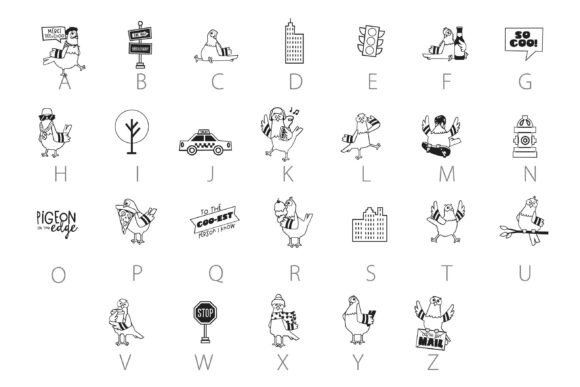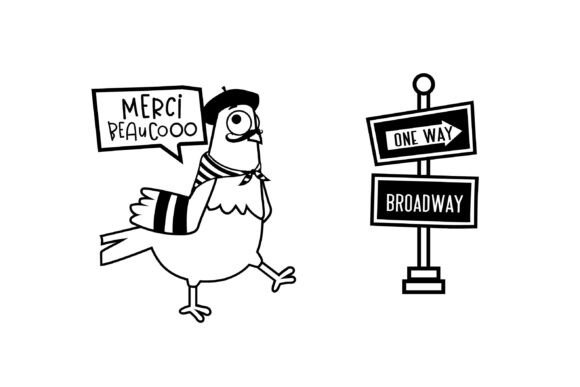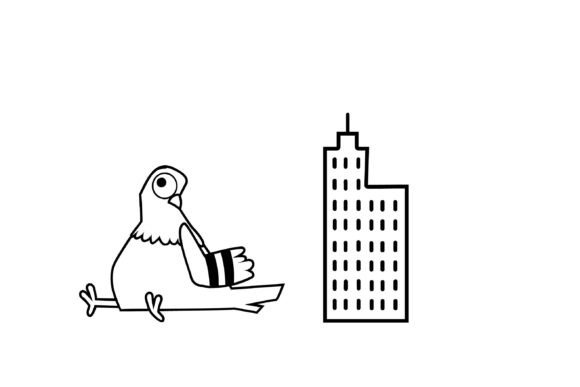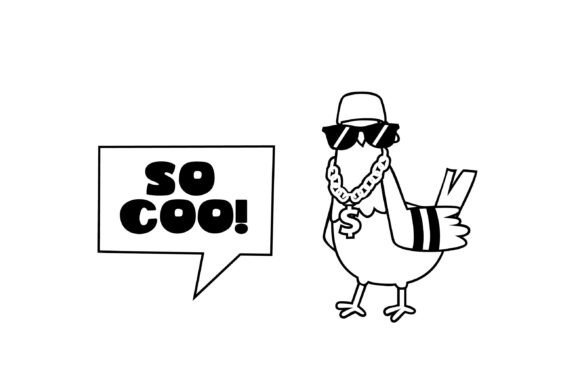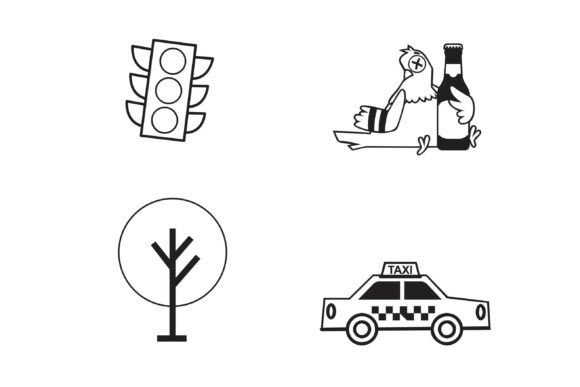
Meet City Coo Crew: The Ultimate Dingbat Font for Urban Enthusiasts
Are you tired of using the same old fonts for your urban-themed designs? Look no further than City Coo Crew, a witty and vibrant dingbat font that celebrates the unofficial mascot of the city: the pigeon. This unique collection features a series of high-character pigeon illustrations in various urban scenarios, guaranteed to add a touch of street-smart humor and metropolitan charm to your designs.
The Star of the Show: Pigeon Illustrations
City Coo Crew Dingbats Font takes inspiration from the humble pigeon, often overlooked but always present in cityscapes. This font features a range of pigeon illustrations, each one showcasing a different personality and urban activity. You’ll find a hip-hop bird sporting a gold chain, a skateboarding “coo” in mid-air, and even a sophisticated French pigeon donning a beret. These illustrations are not only adorable but also versatile, making them perfect for a variety of design projects.
Urban Essentials: Completing the City Coo Crew Font
But City Coo Crew is more than just pigeons – it’s also a comprehensive collection of urban elements that complement the avian illustrations. You’ll find essential city features like fire hydrants, street signs, and taxi cabs, all rendered in a consistent, bold-line doodle style. These elements allow you to create cohesive and engaging designs that capture the essence of city living.
So, what can you create with City Coo Crew Dingbats Font? The possibilities are endless! Here are a few ideas to get you started:
- Urban-themed streetwear: Add a touch of city flair to your apparel designs with bold, eye-catching pigeon illustrations and urban elements.
- Edgy social media stickers: Create engaging stickers for social media platforms, perfect for city-dwellers and urban enthusiasts.
- Travel journaling: Document your city adventures with custom journal pages featuring City Coo Crew illustrations.
- Playful city-branding projects: Use City Coo Crew to create memorable and fun branding for city businesses, events, or attractions.
Why Choose City Coo Crew?
With so many fonts available, why choose City Coo Crew? Here are just a few reasons:
- Unique and quirky: City Coo Crew offers a fresh take on urban design, with a dash of humor and whimsy.
- High-quality illustrations: Each illustration is carefully crafted with bold lines and vibrant details, ensuring they stand out in any design.
- Versatile: City Coo Crew can be used for a wide range of projects, from apparel to social media and beyond.
Get Ready to Take Your Designs to the Next Level
Ready to add some city charm to your designs? City Coo Crew Dingbats Font is the perfect tool for designers, crafters, and urban enthusiasts alike. With its unique illustrations and urban elements, this font is sure to inspire creativity and take your designs to new heights. So why wait? Explore the world of City Coo Crew and discover a fresh way to express your urban style.
Key Features of City Coo Crew Dingbats Font
- High-character pigeon illustrations in various urban scenarios
- Essential city elements, including fire hydrants, street signs, and taxi cabs
- Consistent, bold-line doodle style throughout
- Perfect for urban-themed designs, including streetwear, social media stickers, travel journaling, and city-branding projects
Experience the urban jungle like never before with City Coo Crew Dingbats Font. Get creative, have fun, and let the pigeons take over your designs!